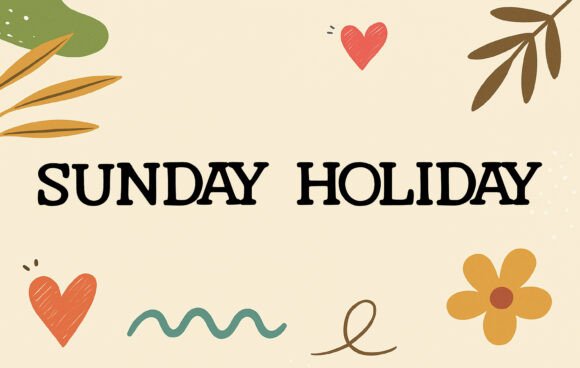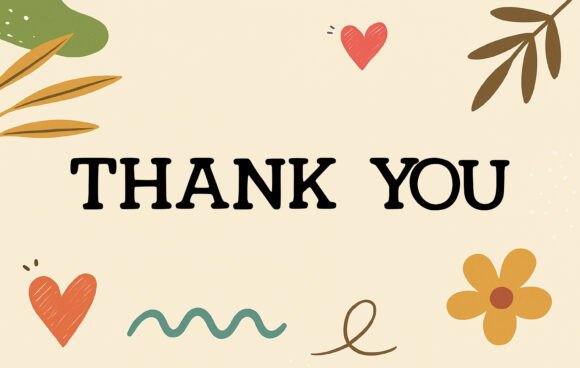
Introducing Adinda Font: Elevate Your Designs with Elegance and Versatility
In the world of typography, a font can make or break a design. It’s the foundation upon which creativity is built, and the right choice can elevate a project from ordinary to extraordinary. This is where Adinda Font comes into play, a meticulously crafted typeface designed to be a true favorite among designers and crafters. With its exceptional legibility and stunning appearance, Adinda Font is poised to take your creative ideas to the highest level, whether you’re working on magazine headlines, t-shirts, social media content, branding, wedding invitations, cards, or any other design project.
Legibility and Versatility: The Hallmarks of Adinda Font
One of the standout features of Adinda Font is its remarkable legibility. In today’s fast-paced digital age, where audiences are bombarded with information, a font that can convey your message clearly and effectively is invaluable. Adinda Font excels in this regard, ensuring that your text is easy to read, whether it’s used as a title or body text. This versatility is crucial for designers who need a reliable font that can adapt to various design requirements without compromising on aesthetics or readability.
Adinda Font’s adaptability makes it an ideal choice for a myriad of design projects. Here are some areas where this font truly shines:
• Magazine Headlines: Grab the attention of your readers with bold and stylish headlines that set the tone for your publication.
• T-Shirts and Apparel: Create eye-catching and comfortable designs for clothing and accessories that stand out.
• Social Media: Elevate your social media presence with engaging and professional-looking posts and stories.
• Branding: Establish a strong brand identity with a font that communicates your message with clarity and style.
• Wedding Invitations and Cards: Add a touch of elegance and sophistication to your wedding invitations, greeting cards, and other stationery.
Why Choose Adinda Font?
With so many fonts available, what sets Adinda Font apart? Here are a few reasons why designers and crafters are gravitating towards this exceptional typeface:
• Ease of Use: Adinda Font is designed to be user-friendly, making it easy to incorporate into your projects, regardless of your design experience.
• High-Quality Design: Crafted with attention to detail, Adinda Font offers a high level of craftsmanship that reflects in its clean lines and elegant appearance.
• Flexibility: Whether you’re working on digital or print projects, Adinda Font performs exceptionally well, ensuring consistency across different mediums.
Adinda Font is more than just a typeface; it’s a design companion that can help you bring your creative visions to life. Its combination of legibility, versatility, and aesthetic appeal makes it an indispensable tool for designers and crafters looking to make an impact. Whether you’re aiming to create stunning magazine headlines, compelling social media content, or beautiful wedding invitations, Adinda Font is the perfect choice. Elevate your designs with the elegance and versatility of Adinda Font and discover a world of creative possibilities.